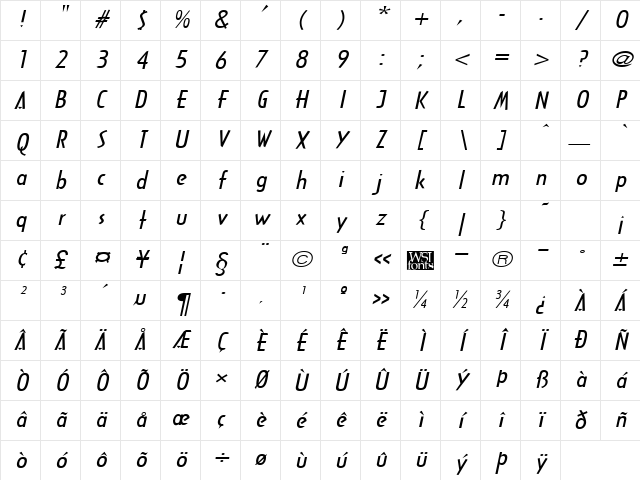
ArcaneBroad Italic
ArcaneBroad Family
Complete ArcaneBroad Italic glyph index. Displaying only characters natively supported by ArcaneBroad Italic font.
Design Context for ArcaneBroad
ArcaneBroad is a composed and adaptable typeface that performs quietly and consistently across a wide range of design contexts. The slanted form adds forward momentum and visual energy.
Pro Tip: Use ArcaneBroad for emphasis, pull quotes, and subheadings where its slanted energy can add rhythm to the layout.